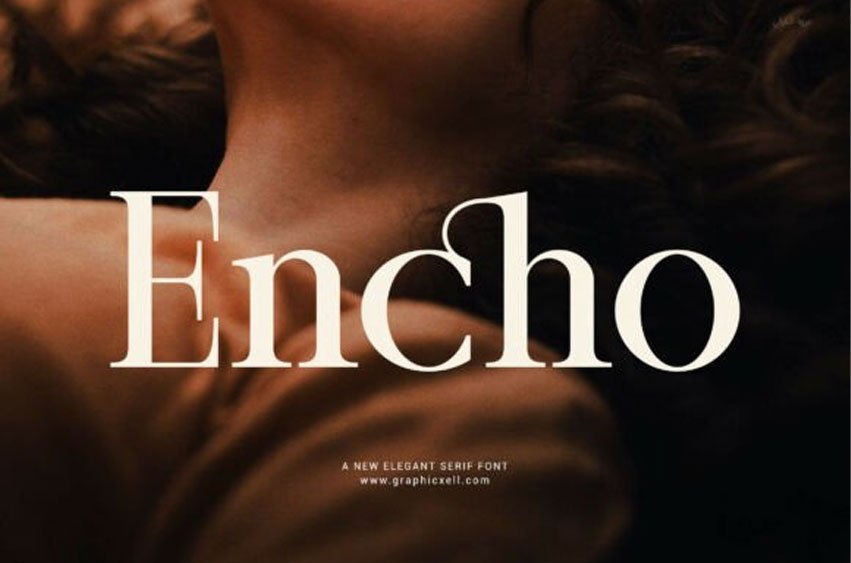
Encho Font is a modern serif font that blends clean structure with a touch of elegance. Designed for professionals and creatives alike, this typeface brings a timeless yet contemporary feel to any visual project.
Whether you’re building a brand identity, designing a magazine, or creating sleek website typography, Encho adds polish and refinement to your design.